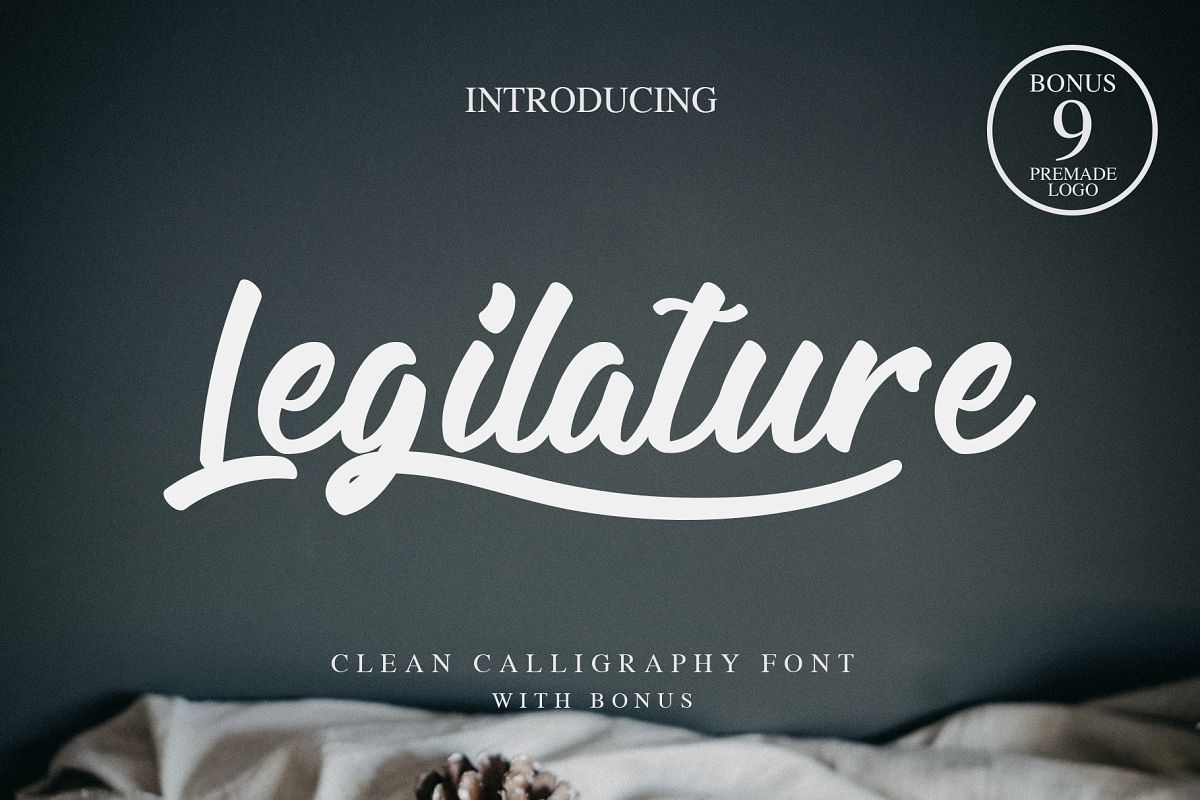
Legilature with BONUS
Legilature - a Modern Calligraphy Font is a font with a simple and modern calligraphy style, this font is great for your next creative projects such as quotes, album cover, business card, and many other design project.
Legilature comes with uppercase letters, lowercase alternative letters, numbers, punctuation, ligature and multi lingual support + BONUS 9 Premade Logo